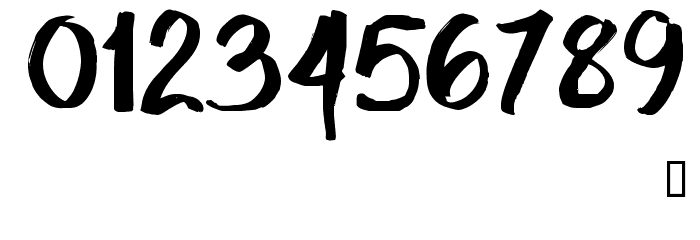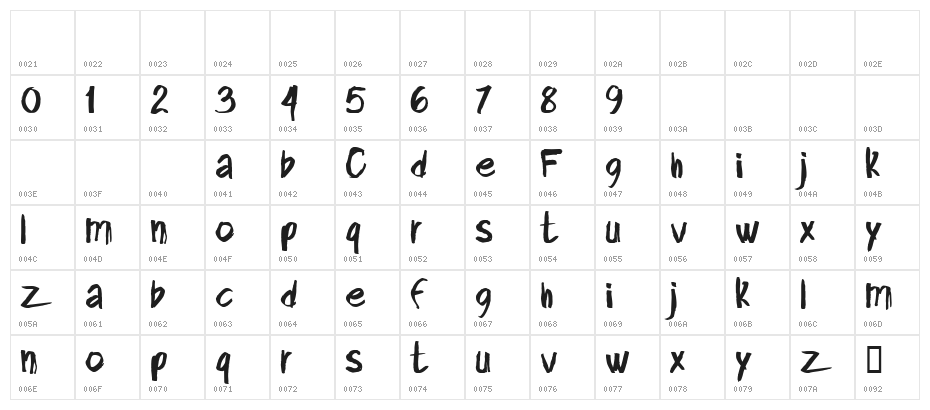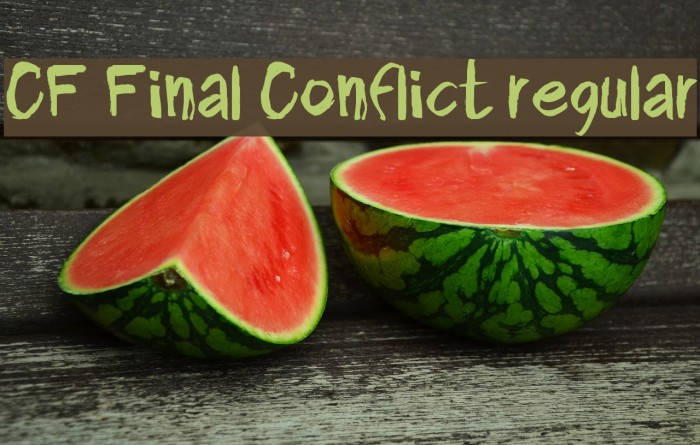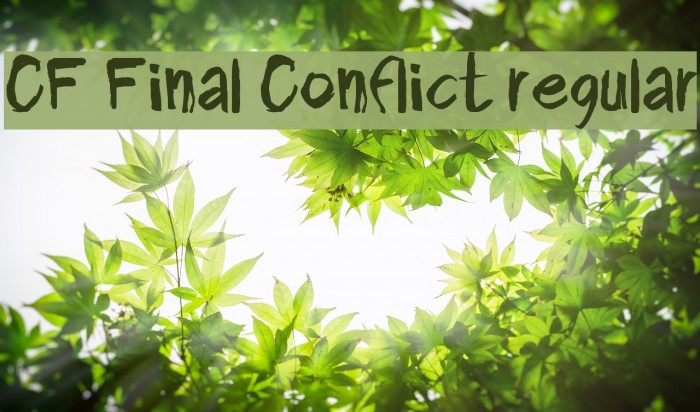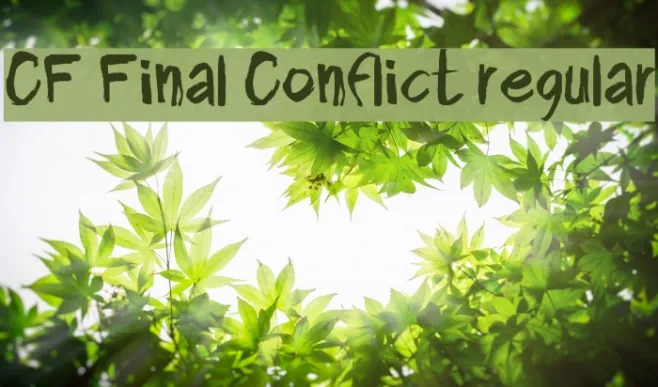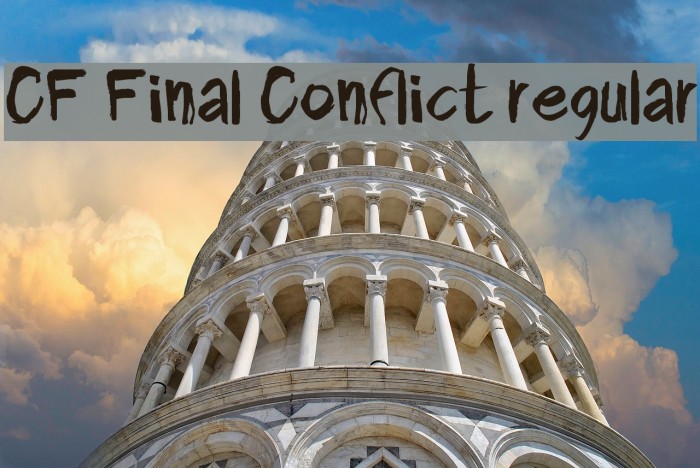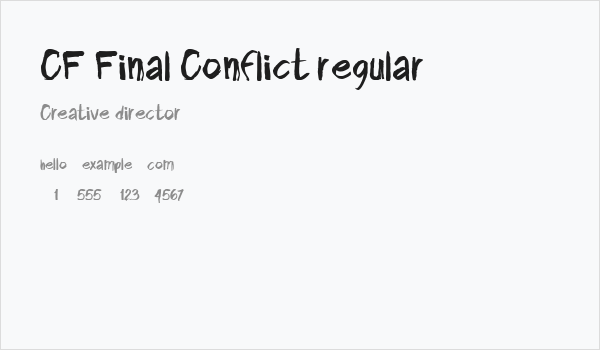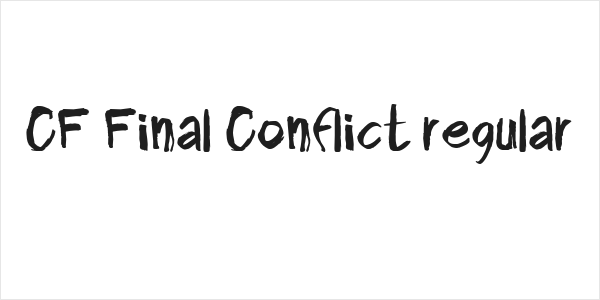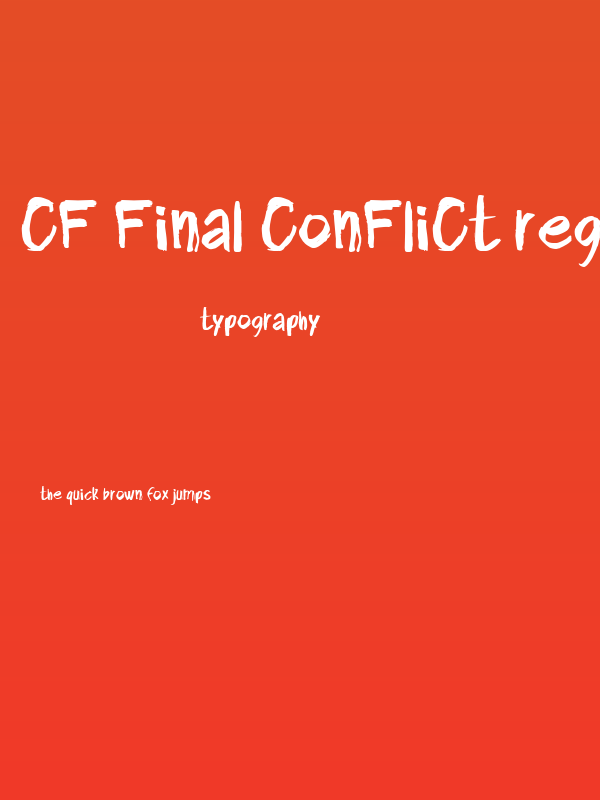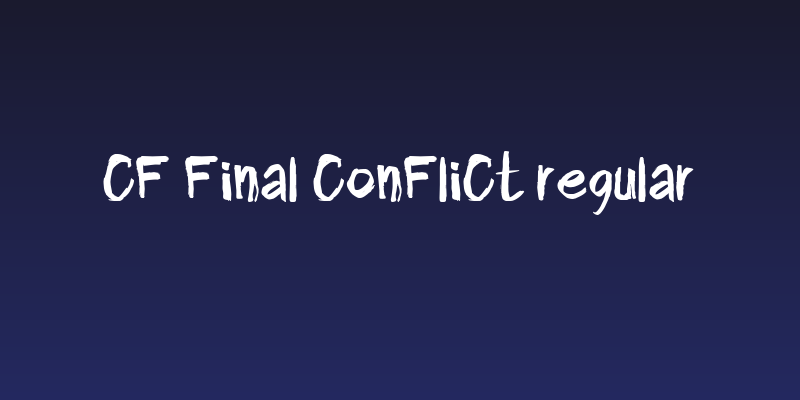
CF Final Conflict Regular Font
CF Final Conflict Regular Description
This font features a bold, expressive style with a hand-painted appearance. The strokes are uneven and dynamic, giving it a lively and energetic feel. The characters have a rough texture, reminiscent of brush strokes, which adds a sense of movement and spontaneity. The uppercase and lowercase letters maintain a consistent style, with some variation in width and height, enhancing its artistic flair. The numbers follow the same aesthetic, ensuring a cohesive look across all characters. This font's unique style makes it stand out, perfect for projects that require a bold and creative touch.
| Proposed Projects | Ideal for posters, album covers, artistic branding, and creative advertising. |